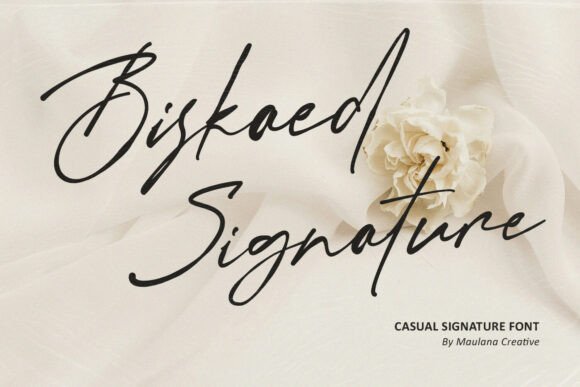
Discover the Effortless Cool of Biskaed Signature Font
Have you ever been in the middle of a design project, and suddenly, you’re stuck on finding the perfect font? I recall a recent experience where a client asked for a “handwritten” feel for their boutique brand. After hours of scrolling through font libraries, I stumbled upon the Biskaed Casual Signature font. It was love at first sight! 💕
The Biskaed Casual Signature font embodies the essence of modern penmanship, exuding a sense of effortless cool. Its natural, fluid flow and varying stroke weights mimic the pressure of a real ink pen, offering an authentic human connection. This typeface is perfect for “lifestyle” branding, making it an ideal choice for influencer watermarks, casual boutique logos, and stylish social media graphics.
Honest Review: What I Love and a Few Quirks
- ✨ The natural, fluid flow that mimics real handwriting
- ✅ Varying stroke weights that add depth and character
- 💯 Perfect for “lifestyle” branding and casual designs
- 🎨 Works beautifully on photography overlays, business cards, and apparel tags
A Few Quirks:
- 🤔 Some letters may appear a bit cramped, so kerning might be necessary
- ⚠️ Limited use of uppercase letters, which can make it less suitable for headings
A Practical Guide to Using Biskaed Signature Font
- Experiment with the font’s OpenType features, such as stylistic alternates and glyphs, to add more character to your design
- Experiment with the font’s glyphs and stylistic alternates to create a unique look
The Biskaed Signature Font was inspired by the effortless cool of modern penmanship. The designer aimed to create a typeface that captures the natural flow of handwriting, with all its imperfections and quirks. The result is a font that feels approachable, trendy, and bespoke.
Q: Is the Biskaed Signature Font suitable for body text?
A: While the Biskaed Signature Font is beautiful, it’s best suited for headlines, titles, and short paragraphs. Its unique character and varying stroke weights may make it difficult to read in large blocks of text.
Q: Can I pair the Biskaed Signature Font with other fonts?
A: Absolutely! The Biskaed Signature Font pairs beautifully with sturdy, all-caps sans-serifs, which provide a solid foundation for the script’s organic movement. Experiment with different font combinations to find the perfect match for your design.